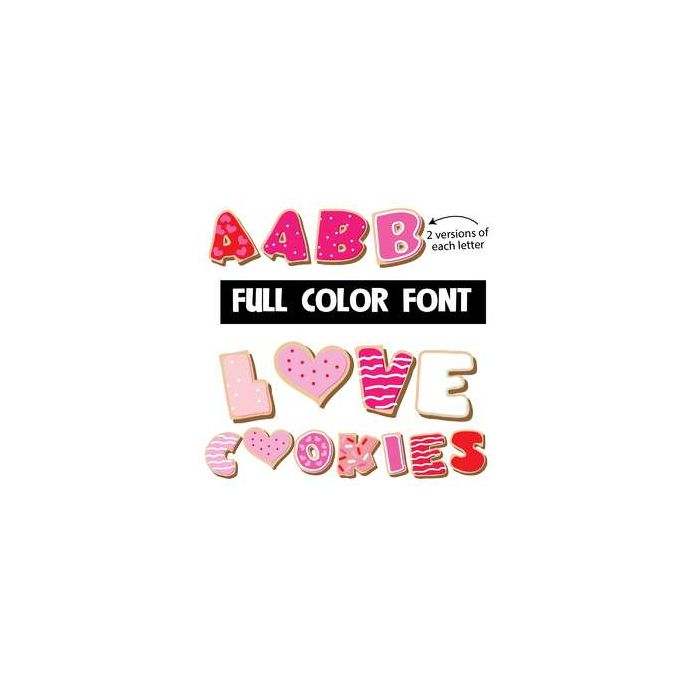
This full-color font features cookies in a valentine color palette. This font works best for titles, displays, posters and more. Please note color fonts will show as black in non compatible programs. This font type is compatible with Silhouette Studio